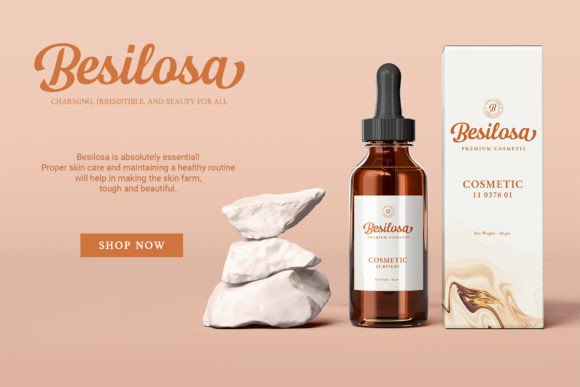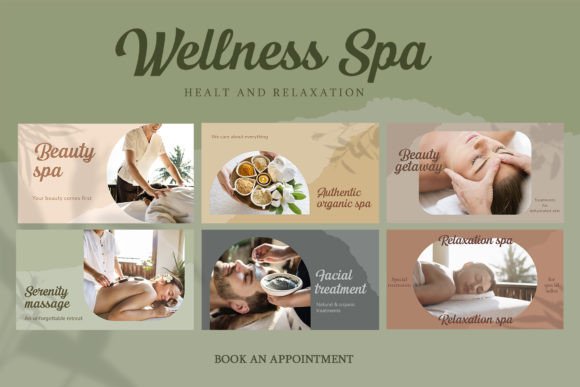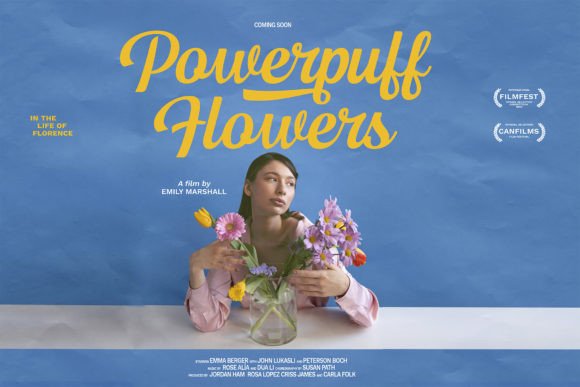
Ameira Font
Introducing **Ameira – Script Display Font** **Ameira** is a Modern Lettering Script Display Font created with glyph variations like alternates and ligatures. Combine it and make your perfect typography design!Perfect for your design projects like logos, branding, advertising, product designs, stationery, magazine designs, book/cover title designs, photography, art quotes, wedding designs, fashion designs, special events, labels, product packaging, and more.This font is PUA encoded which means you can access all of the amazing glyphs and ligatures with ease!